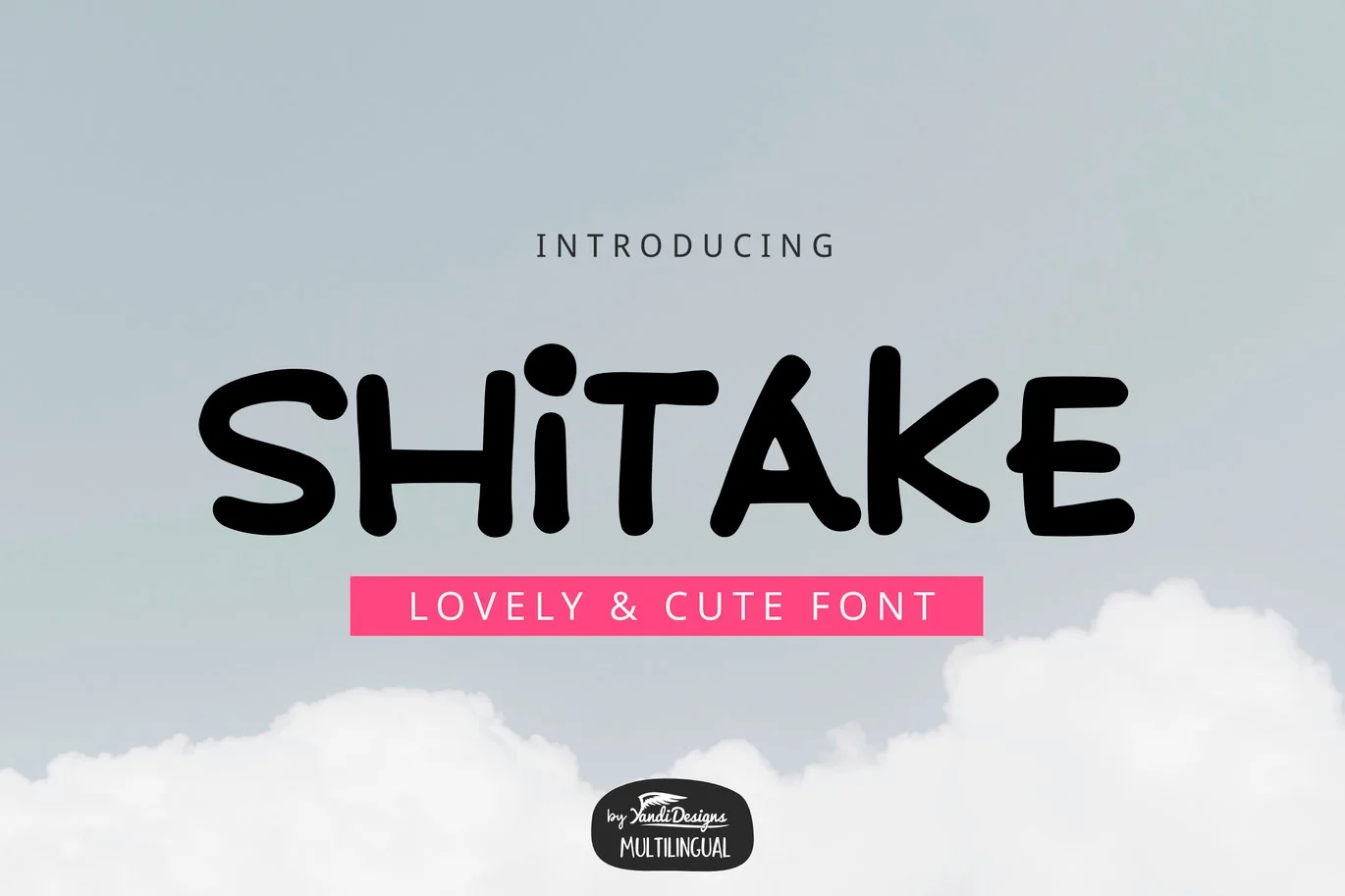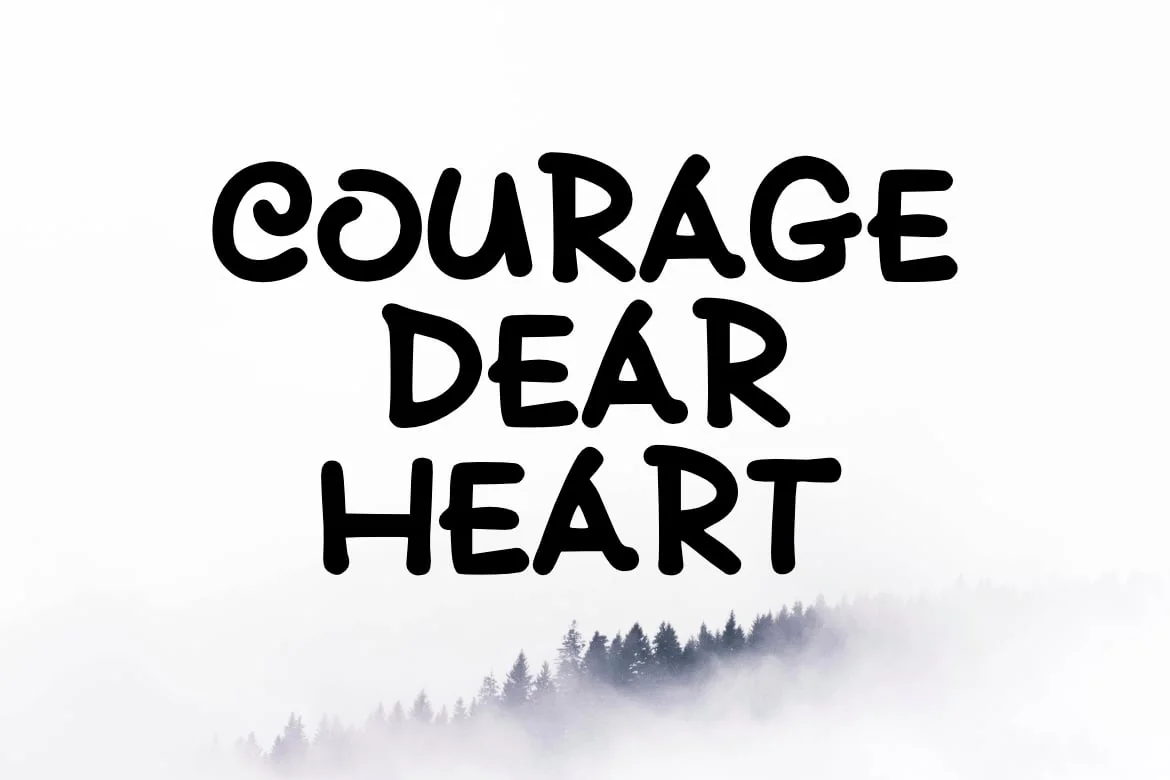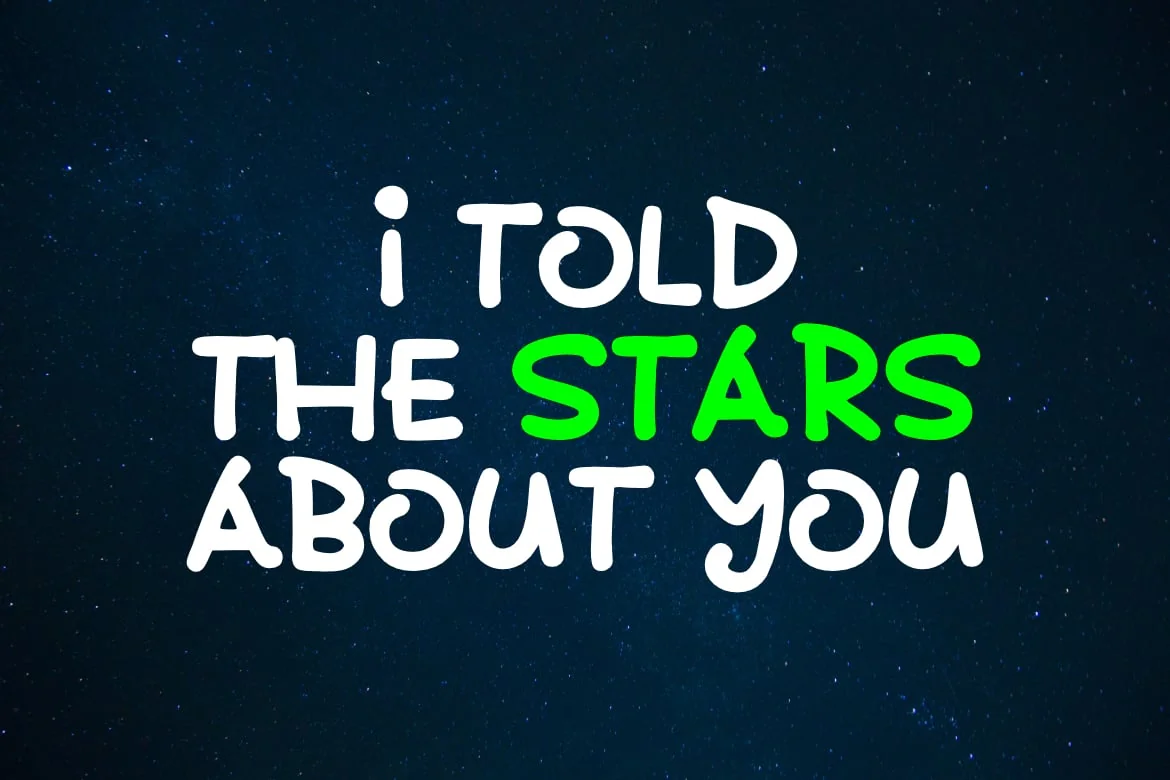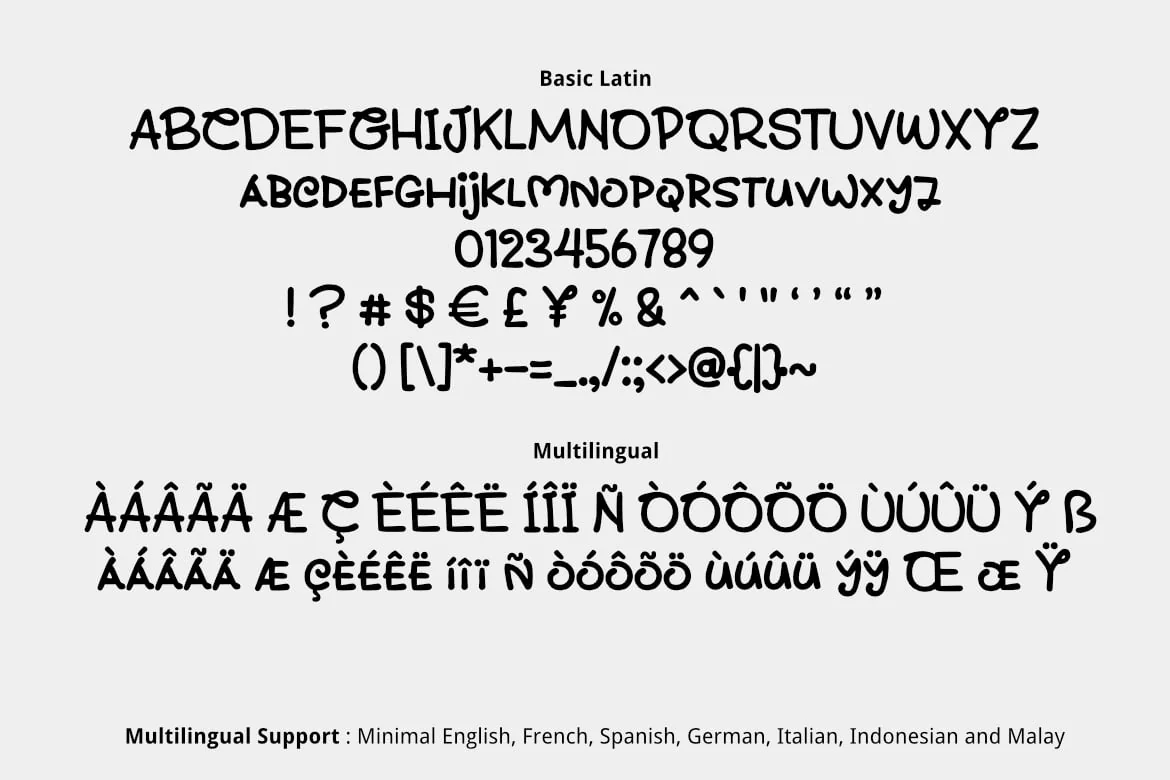
Shitake Font
Shitake is simple cute multipurpose handmade font, suitable for many project children book, quotes, logo , heading , title etc.
Basic Latin (Standard English character, number, symbol)
Multilingual Support (minimal English, French, Spanish, German, Italian, Indonesian, Malay)